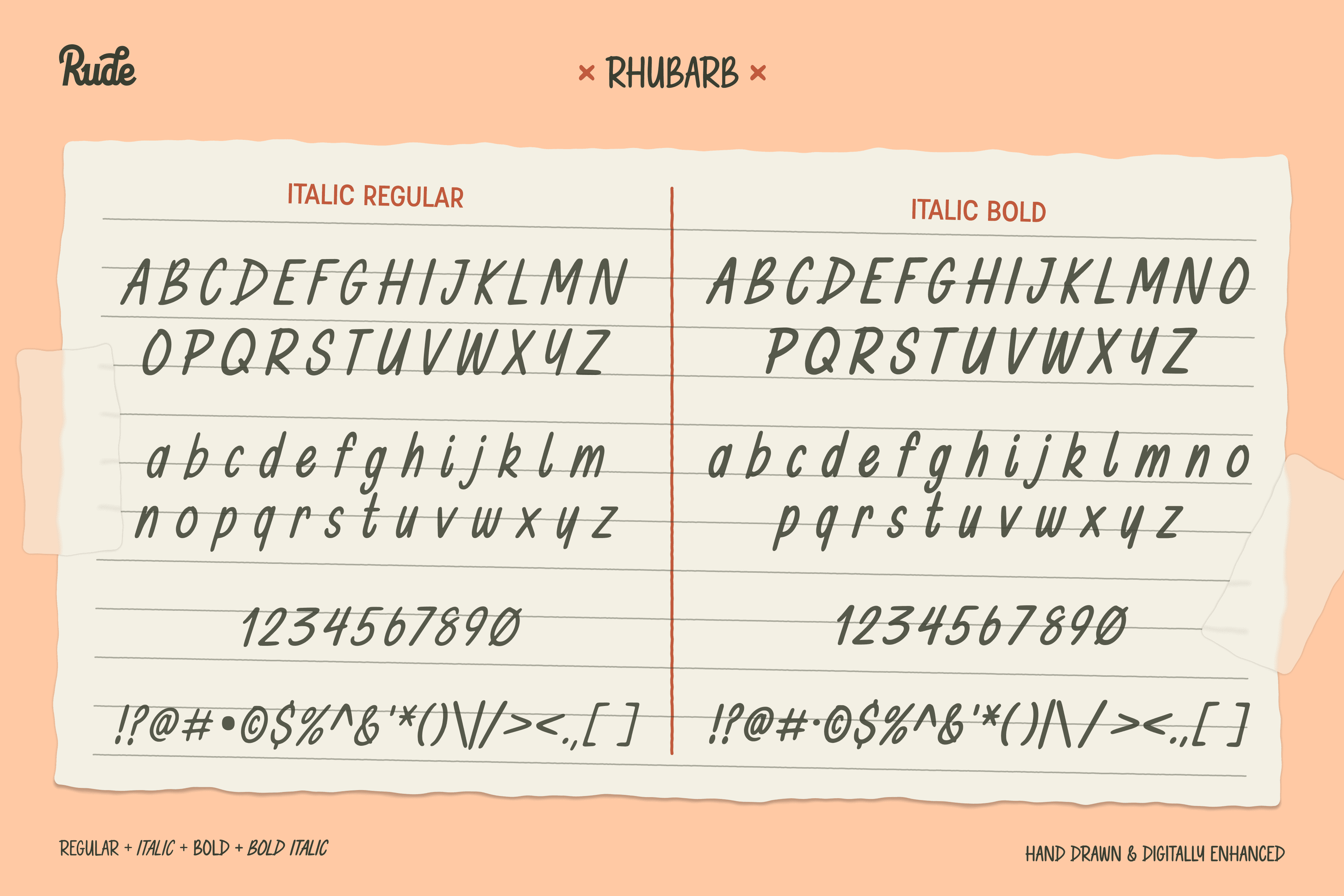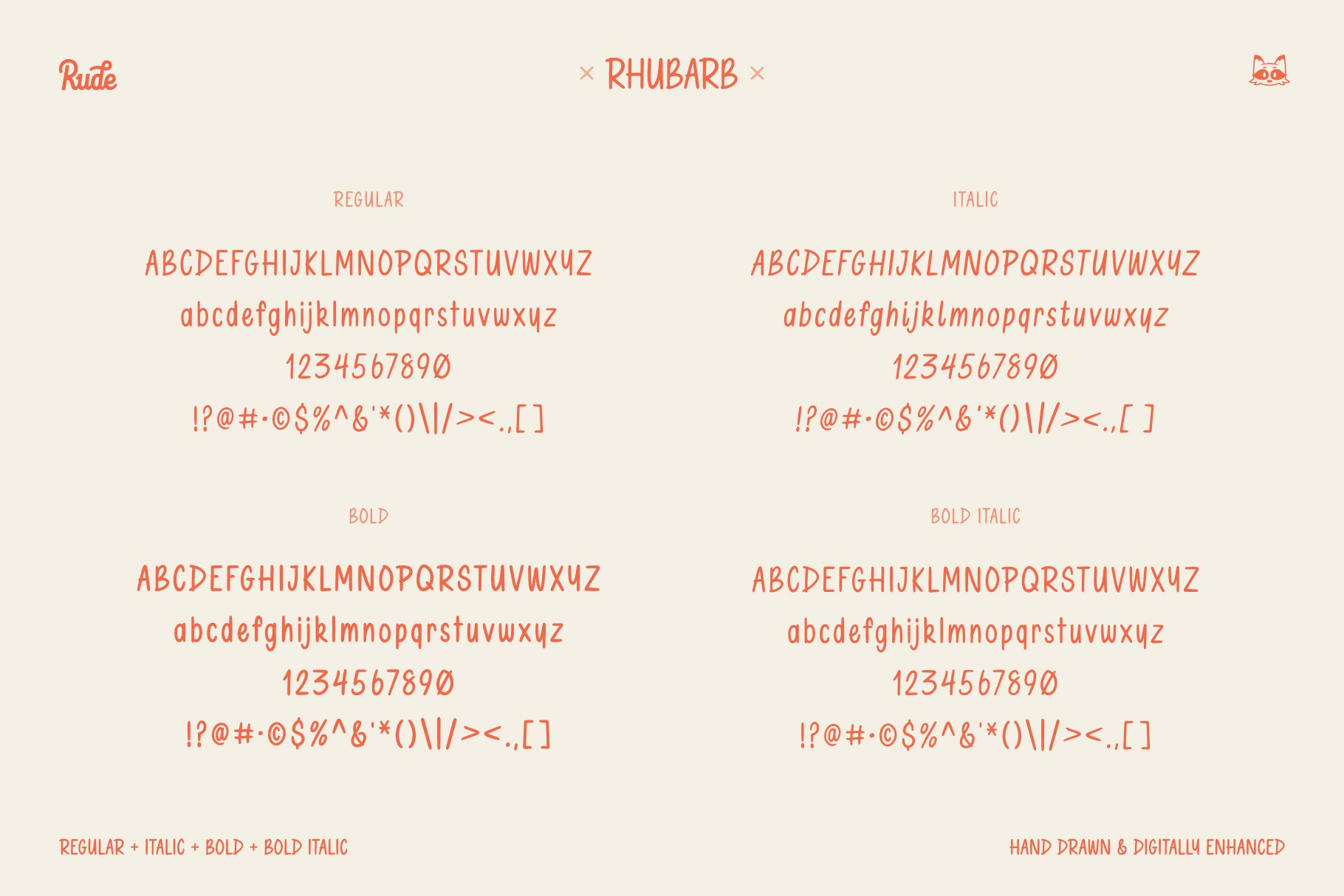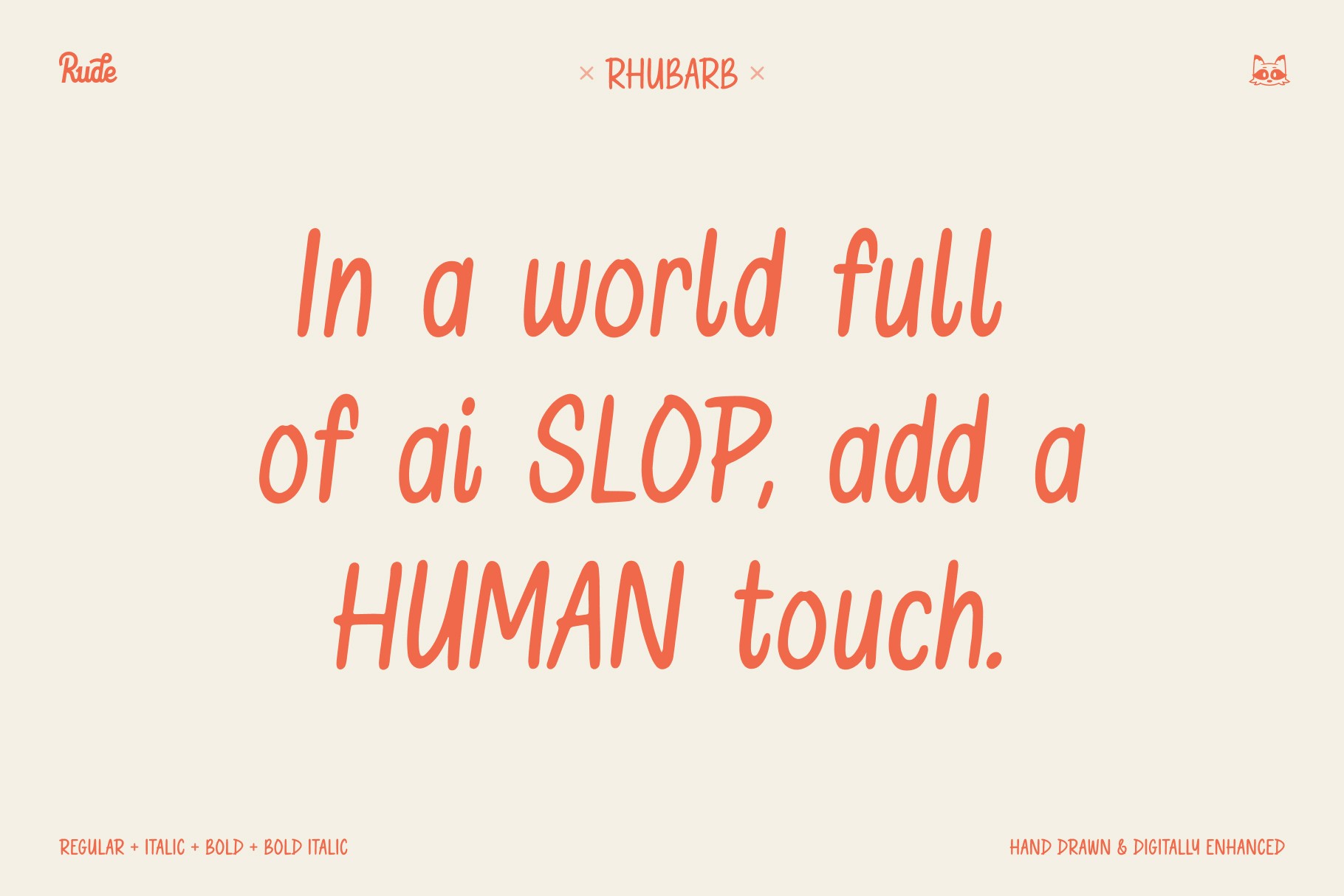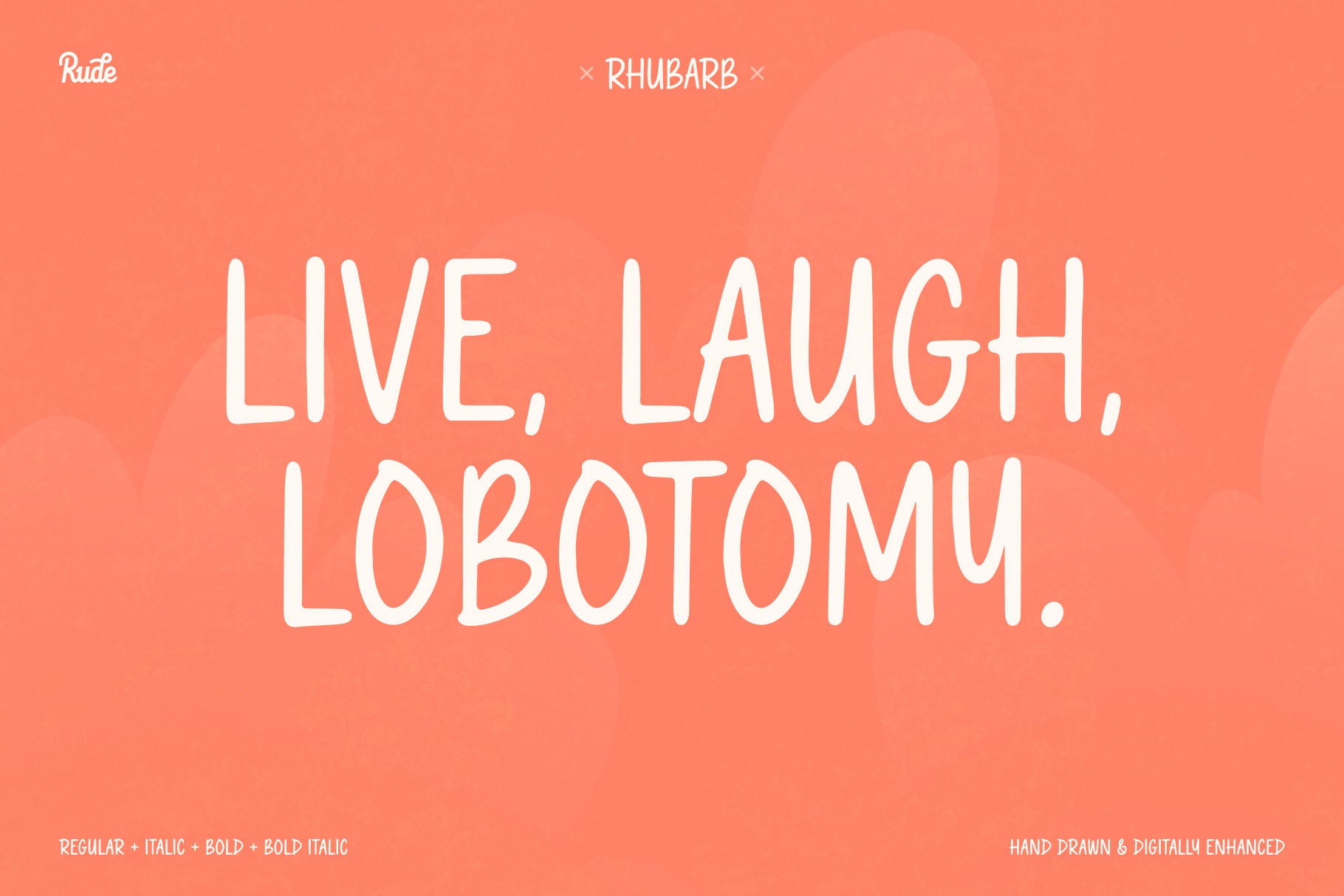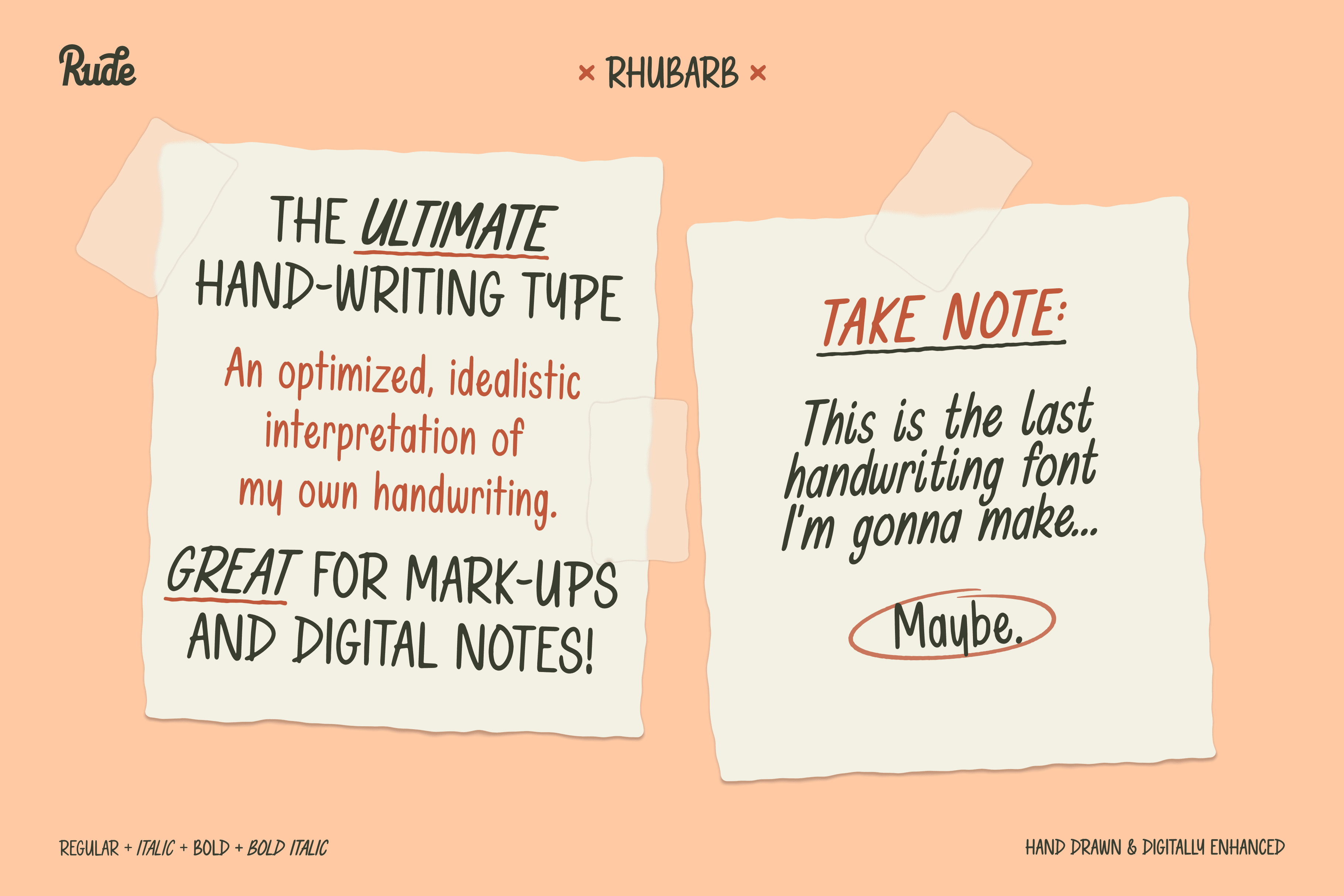
Rhubarb
Handwritten
Multi-Weight
Sans Serif
Sweeten up your type with Rhubarb and express your fun, light-hearted vibe!
• Regular, Bold, & Italics
• Dual-Case
• Handwritten